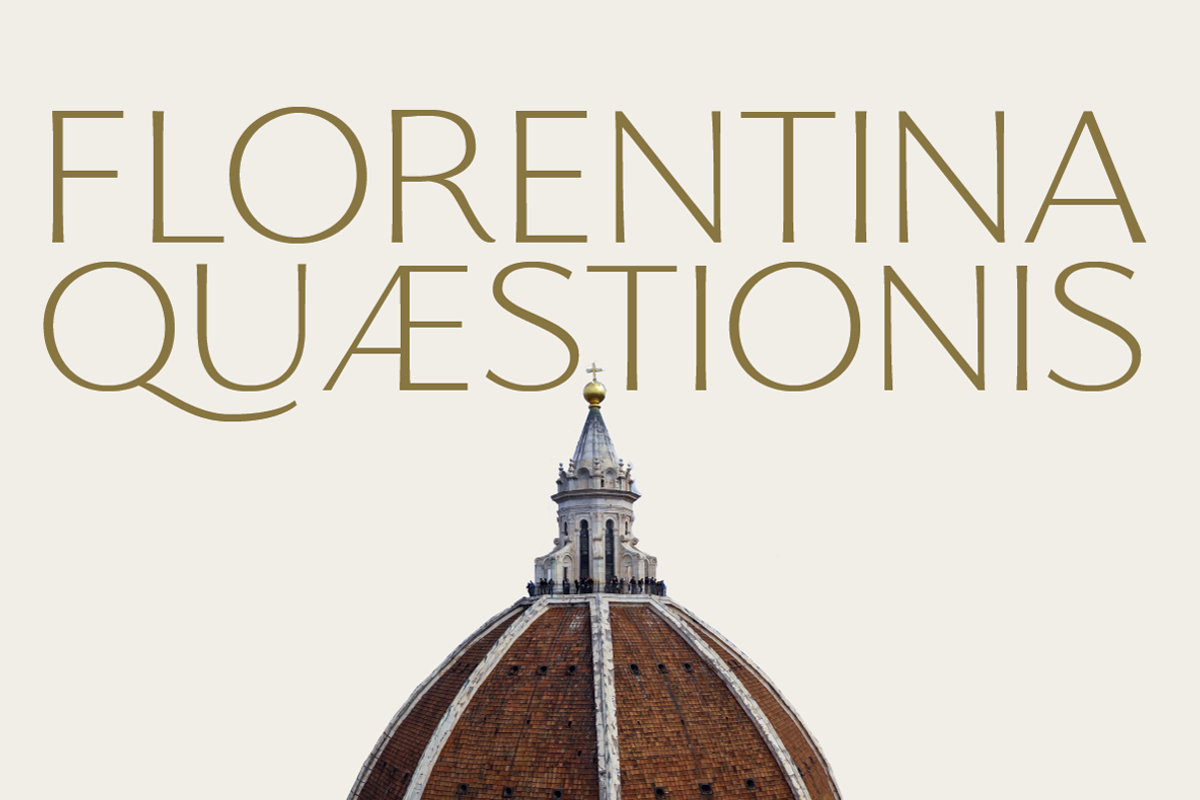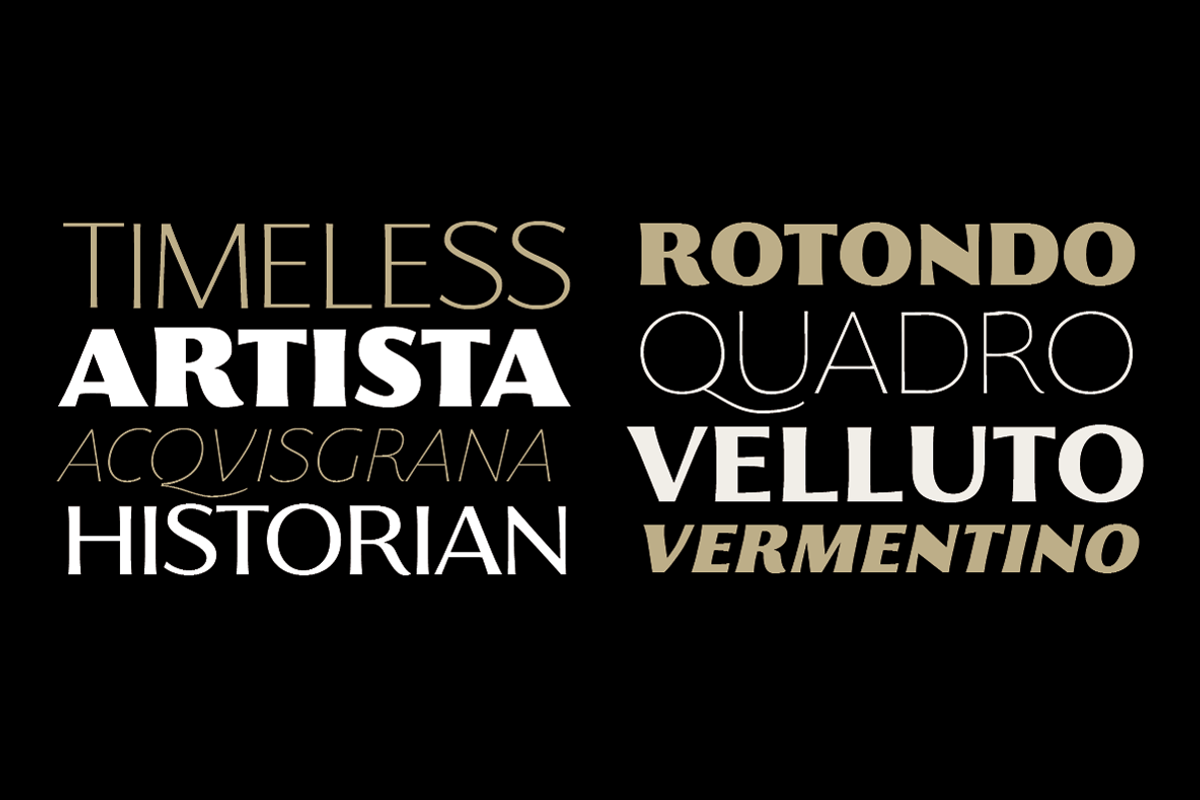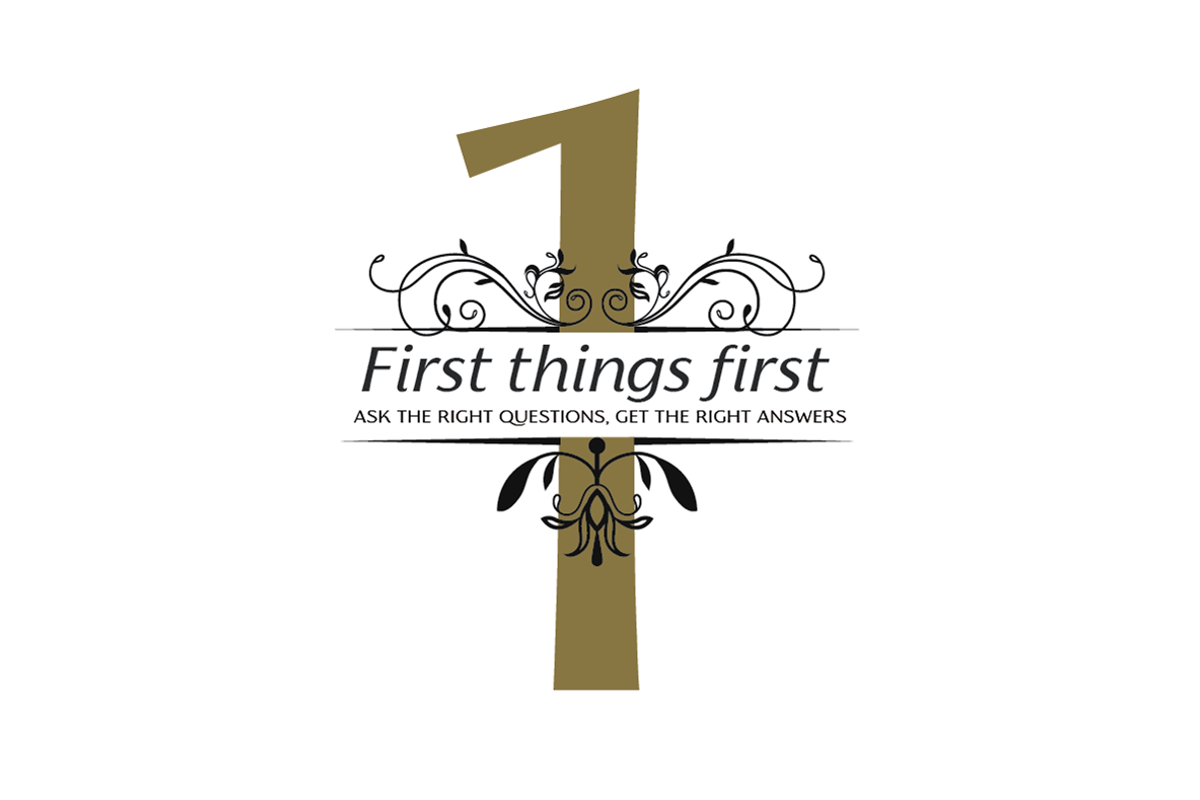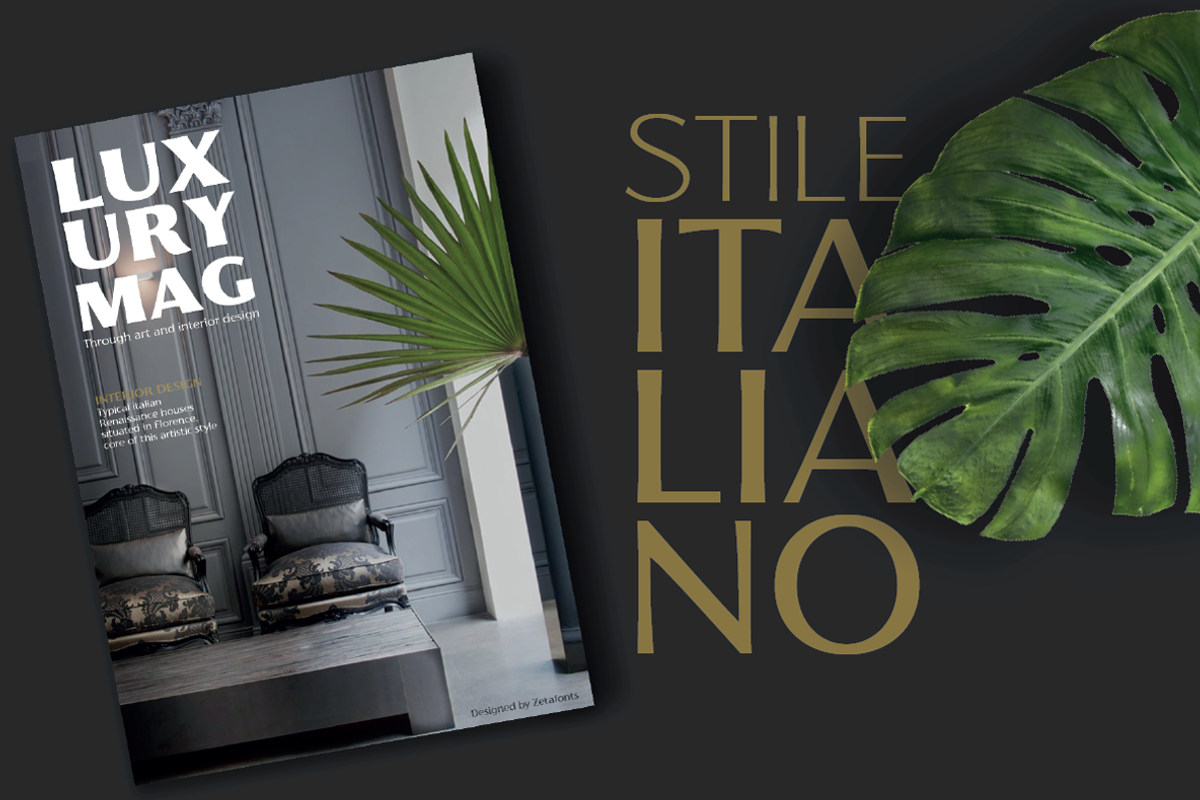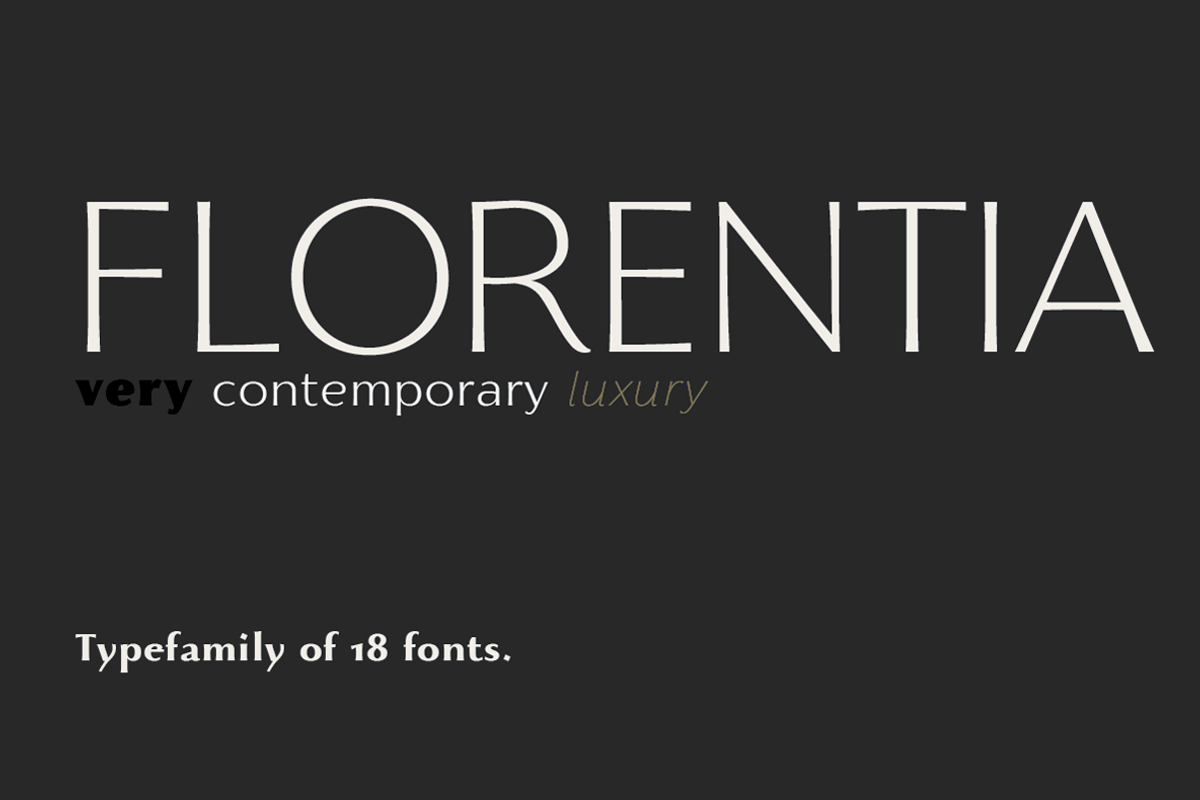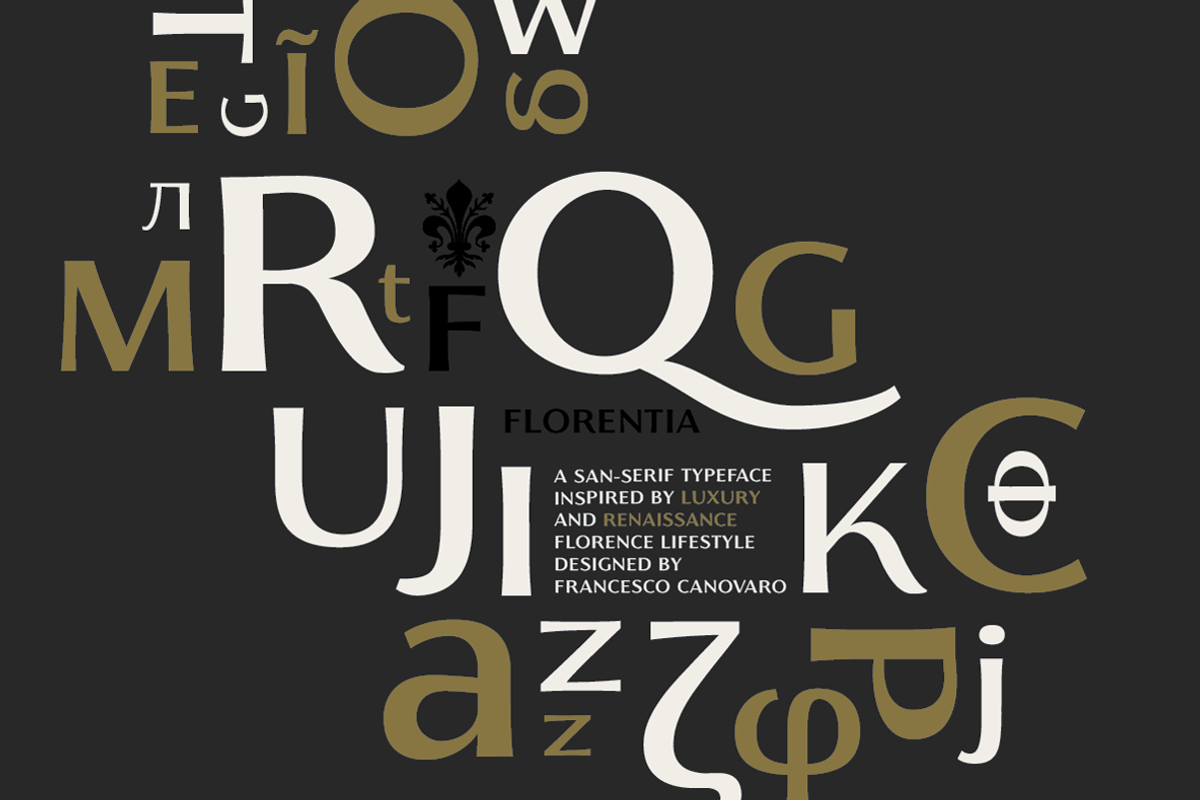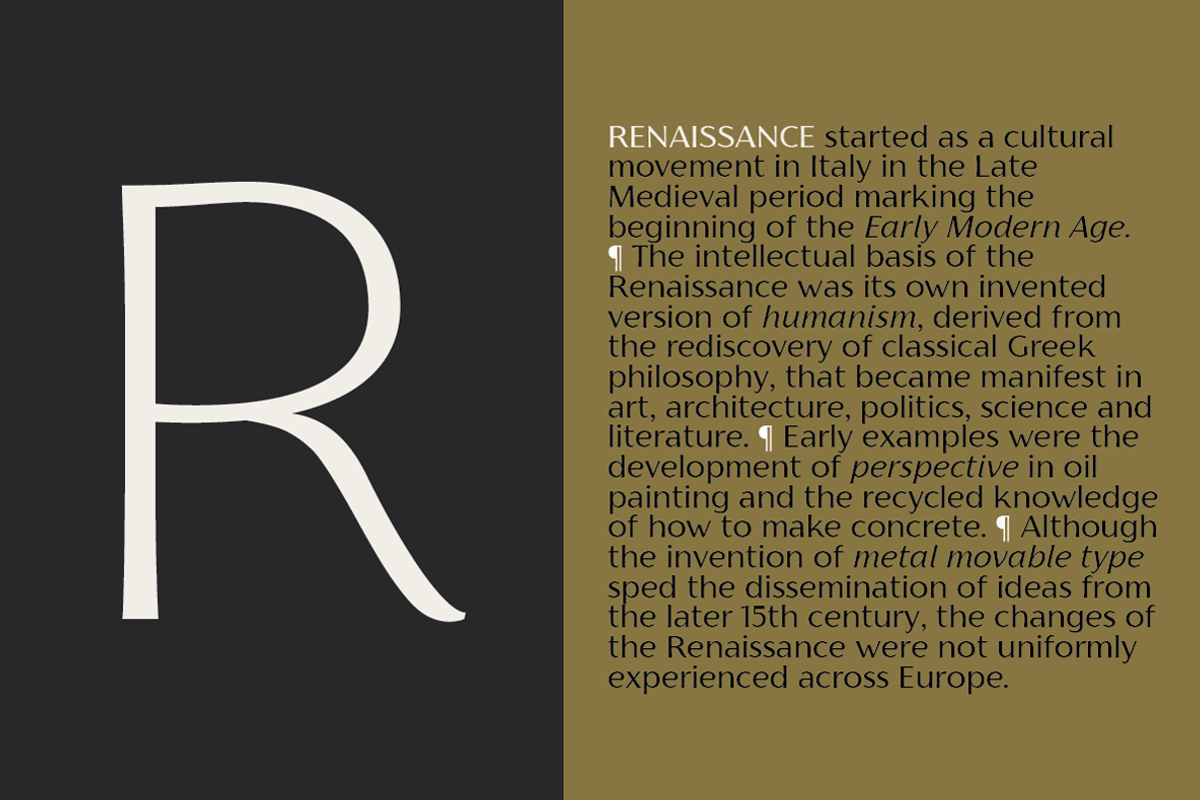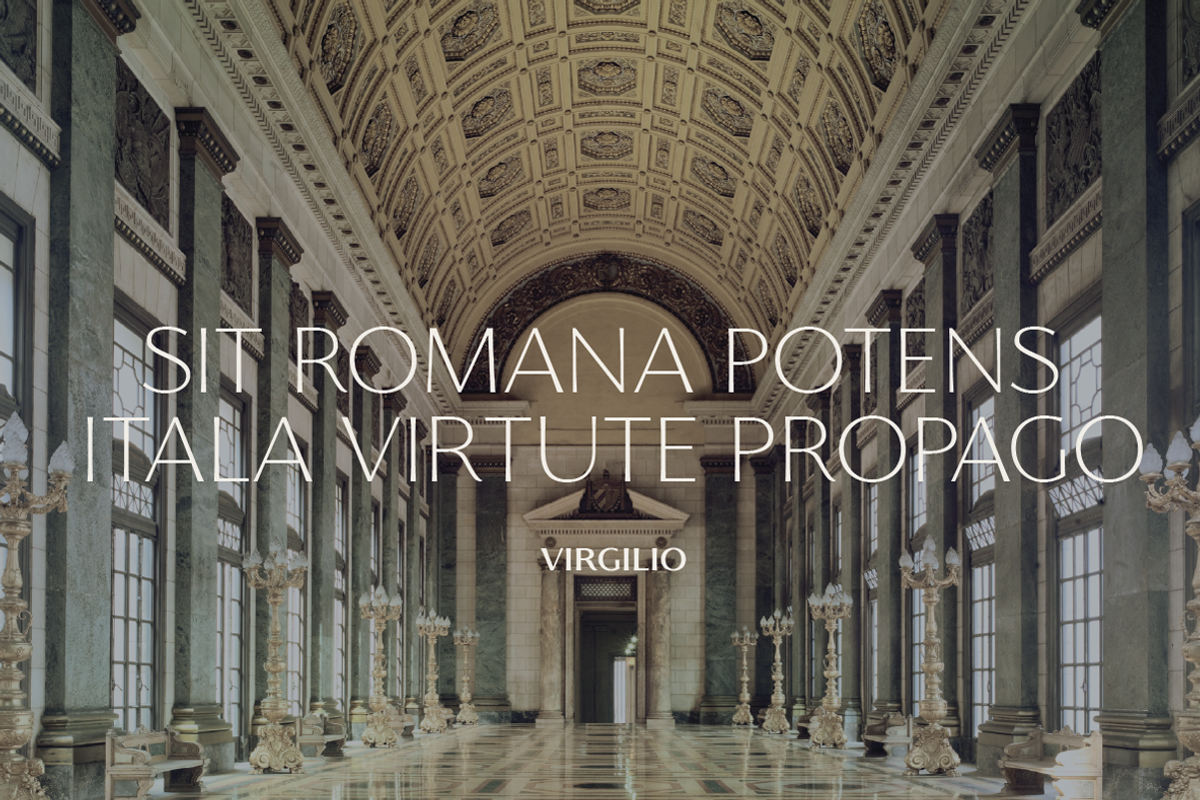
Florentia - 18 fonts
Florentia is a humanist sans-serif typeface designed by Francesco Canovaro, designed developing his Beatrix Family design. Florentia takes its inspiration from the classic Roman monumental capital model of Beatrix but develops the influences derived from the stone carvings in Florence Santa Croce Cathedral into a more contemporary overall design, featuring lower X-height and an extended character set that covers over forty languages using the latin alphabet, as well as Greek and Russian Cyrillic.